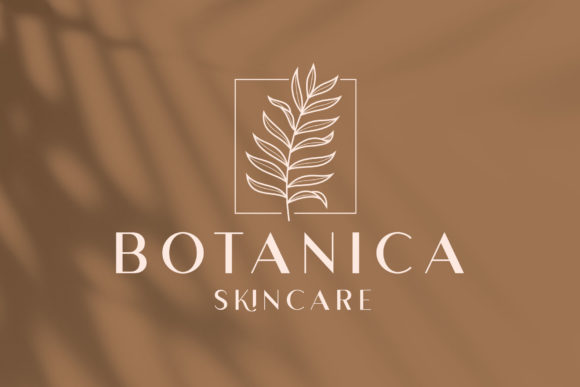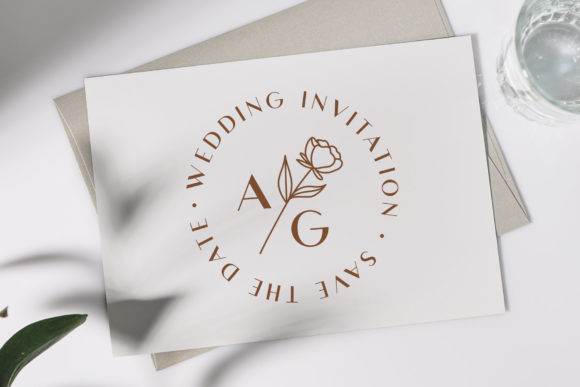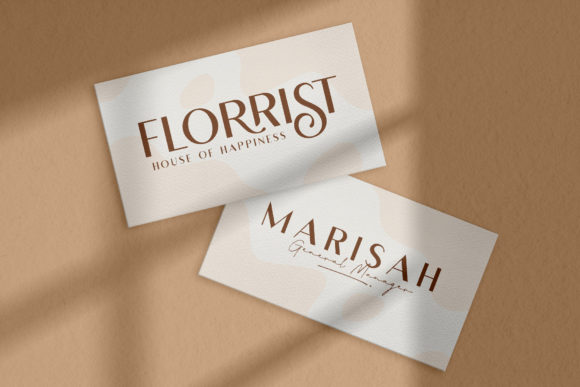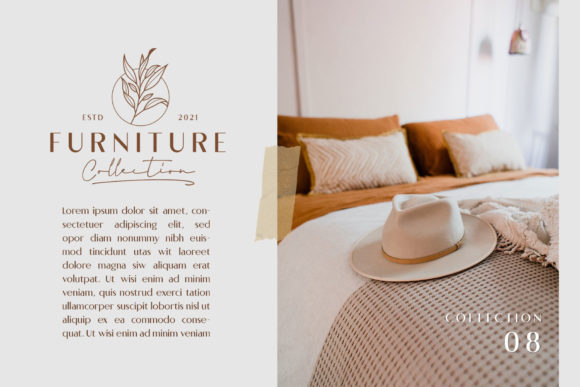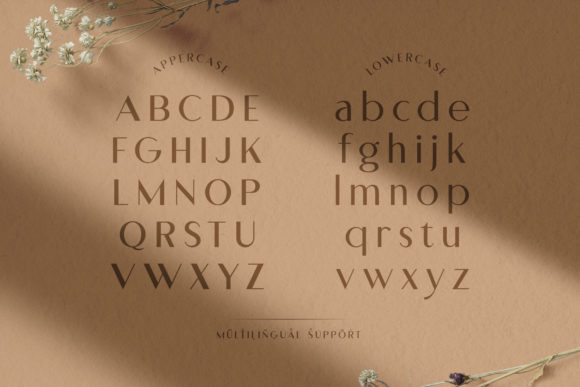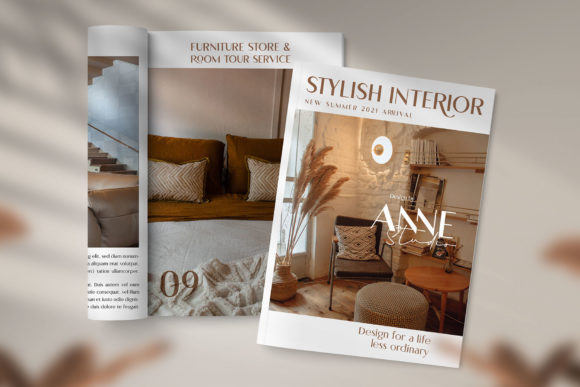
Abigral Font: A Minimalist Sans Serif Marvel for Designers and Crafters
In the realm of typography, fonts play a pivotal role in conveying messages, evoking emotions, and enhancing the aesthetic appeal of designs. Among the myriad of fonts available, Abigral stands out as a unique and versatile typeface that has garnered attention from designers and crafters alike. In this article, we’ll delve into the world of Abigral Font, exploring its characteristics, uses, and the creative possibilities it offers.
What is Abigral Font?
Abigral is a minimalist sans serif font that has been carefully crafted using geometric shapes and fancy double-strokes letterforms. This distinctive design approach lends Abigral a modern and sleek appearance, making it an excellent choice for a wide range of design applications. The font’s creator aimed to produce a typeface that not only exudes simplicity and elegance but also offers versatility in its usage.
Key Characteristics of Abigral Font
- Geometric Shapes: Abigral’s foundation in geometric shapes provides it with a clean and structured look, which is perfect for designs that require a touch of modernity and sophistication.
- Fancy Double-Strokes Letterforms: The double-strokes in Abigral’s letterforms add a decorative element, setting it apart from more traditional sans serif fonts and giving it a unique flair.
- Normal Letterspacing: Designed with a normal letterspacing, Abigral ensures that text remains legible and visually appealing, whether used for display purposes, logotypes, or body text.
- Versatility: One of Abigral’s most significant advantages is its versatility. It can seamlessly transition from being a headline font to a body text font, making it an invaluable asset for designers.
Uses of Abigral Font
Abigral’s adaptability makes it suitable for a variety of design projects. Here are some of the primary uses of Abigral Font:
- Display Text: Abigral’s striking appearance makes it perfect for headlines, titles, and any display text that needs to capture attention and convey a message with style.
- Logotype: The unique double-strokes and geometric foundation of Abigral make it an excellent choice for logotypes. It can help brands stand out and create a memorable visual identity.
- Body Text: Despite its decorative elements, Abigral remains legible and comfortable to read, making it suitable for body text in articles, blogs, and other written content.
Abigral Font offers several benefits to designers and crafters, including:
- Uniqueness: In a sea of fonts, Abigral provides a distinctive look that can help designs stand out.
- Versatility: Its adaptability across different design applications makes Abigral a valuable addition to any designer’s toolkit.
- Legibility: Abigral strikes a balance between style and readability, ensuring that messages are conveyed effectively.
- Ease of Use: Abigral’s normal letterspacing and clear design make it easy to integrate into various projects, saving designers time and effort.
Abigral Font is a remarkable typeface that brings together the simplicity of geometric shapes with the elegance of fancy double-strokes letterforms. Its versatility, legibility, and unique appearance make it an excellent choice for designers and crafters looking to elevate their designs. Whether you’re creating a stunning display text, a memorable logotype, or an engaging body text, Abigral is sure to meet your typographic needs. As the world of design continues to evolve, fonts like Abigral are leading the way, offering fresh inspiration and creative possibilities for professionals and hobbyists alike.